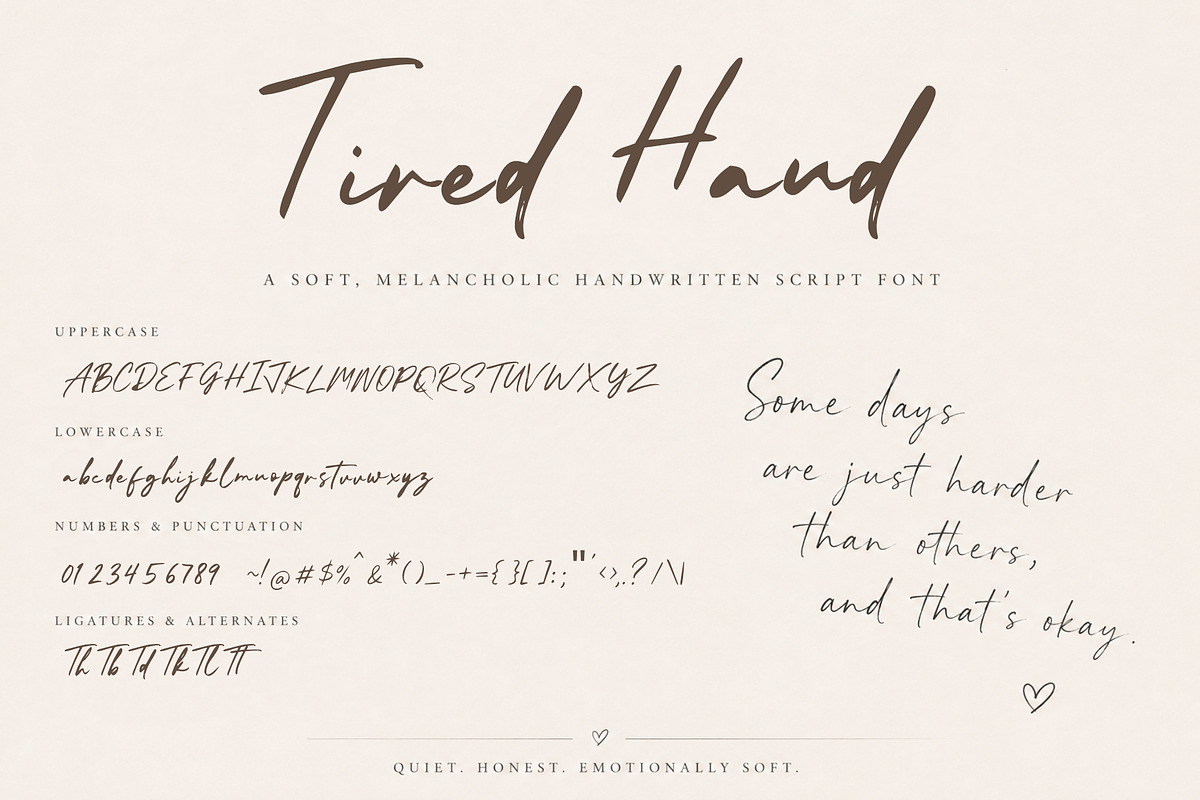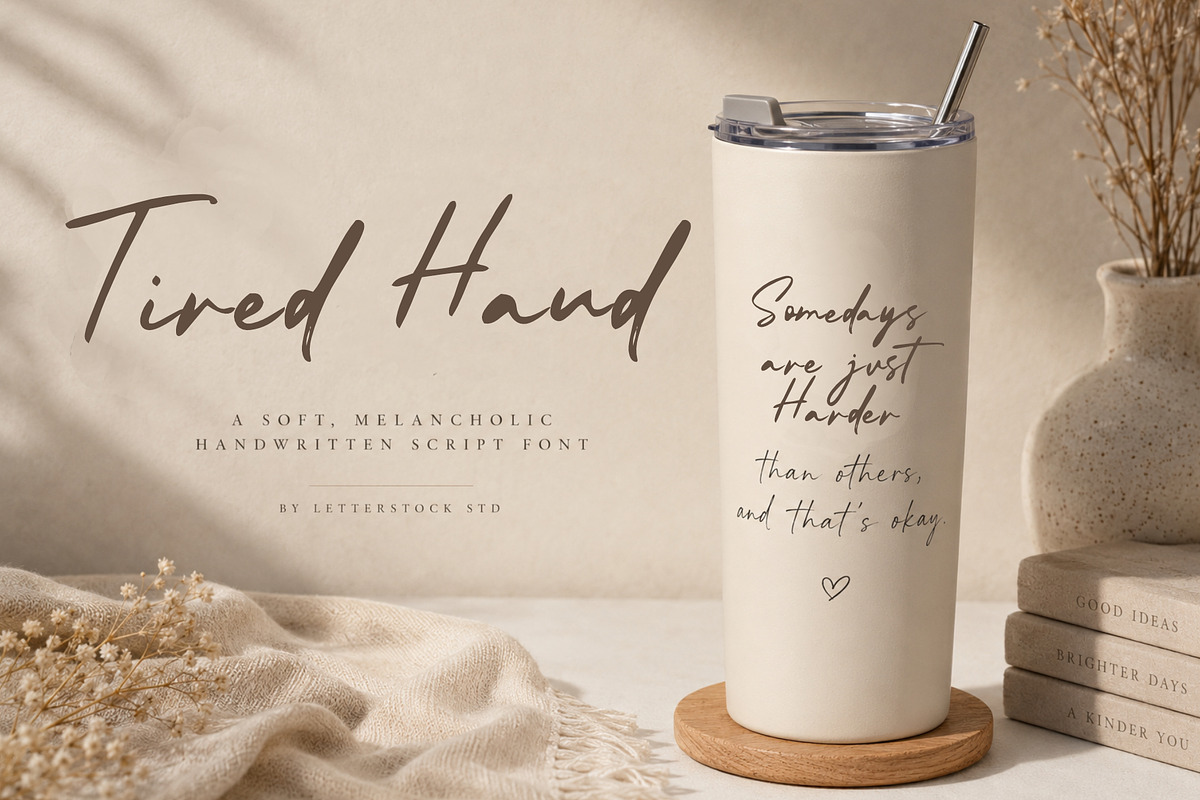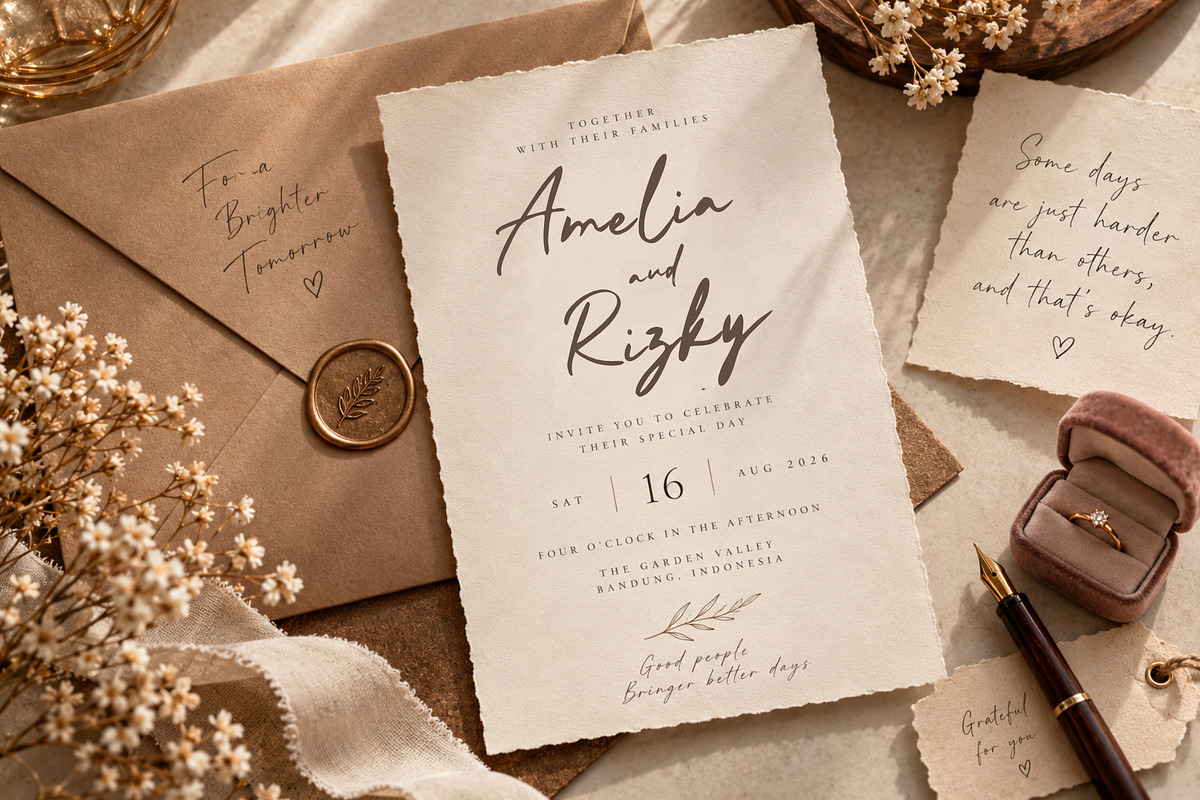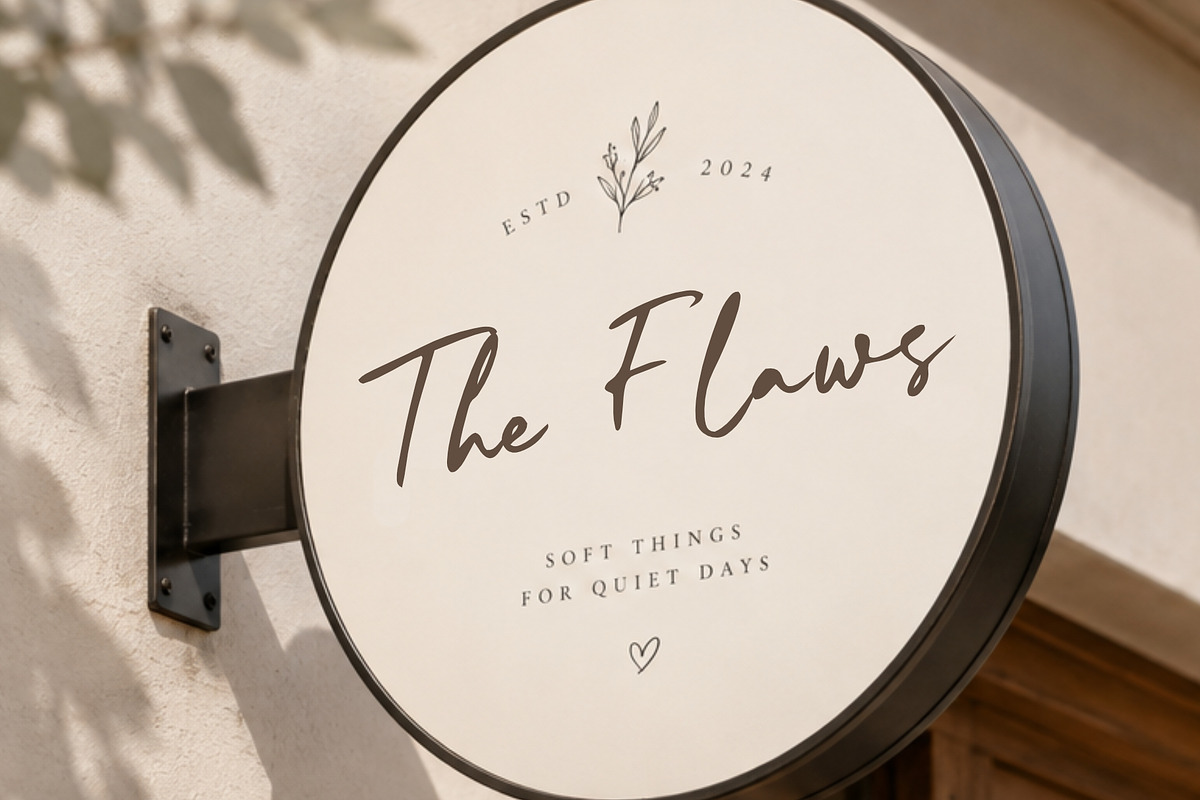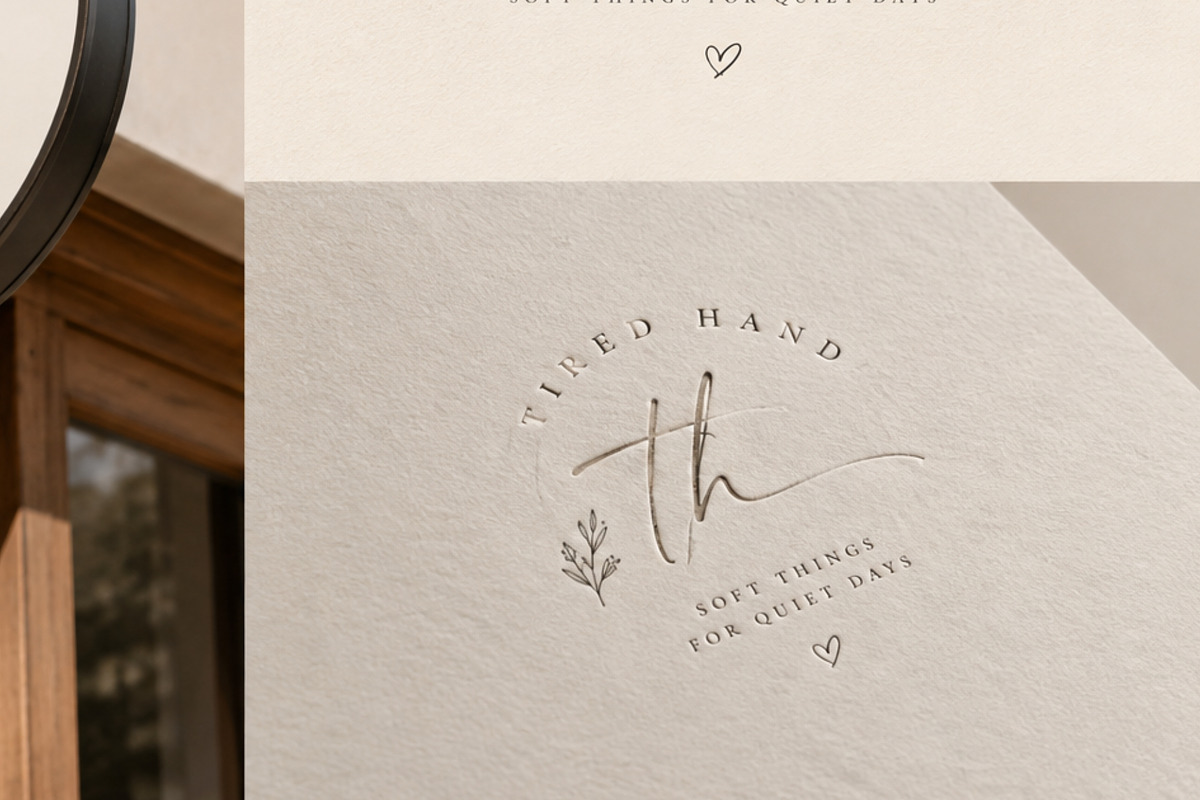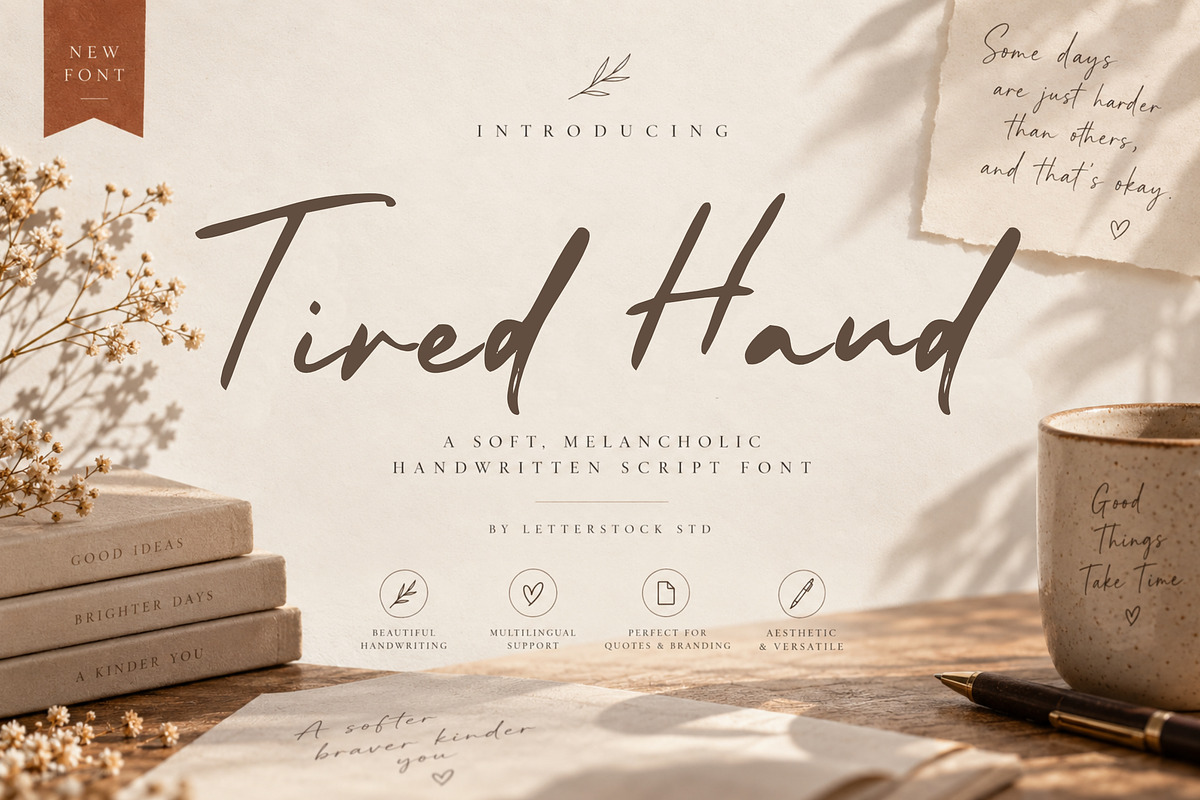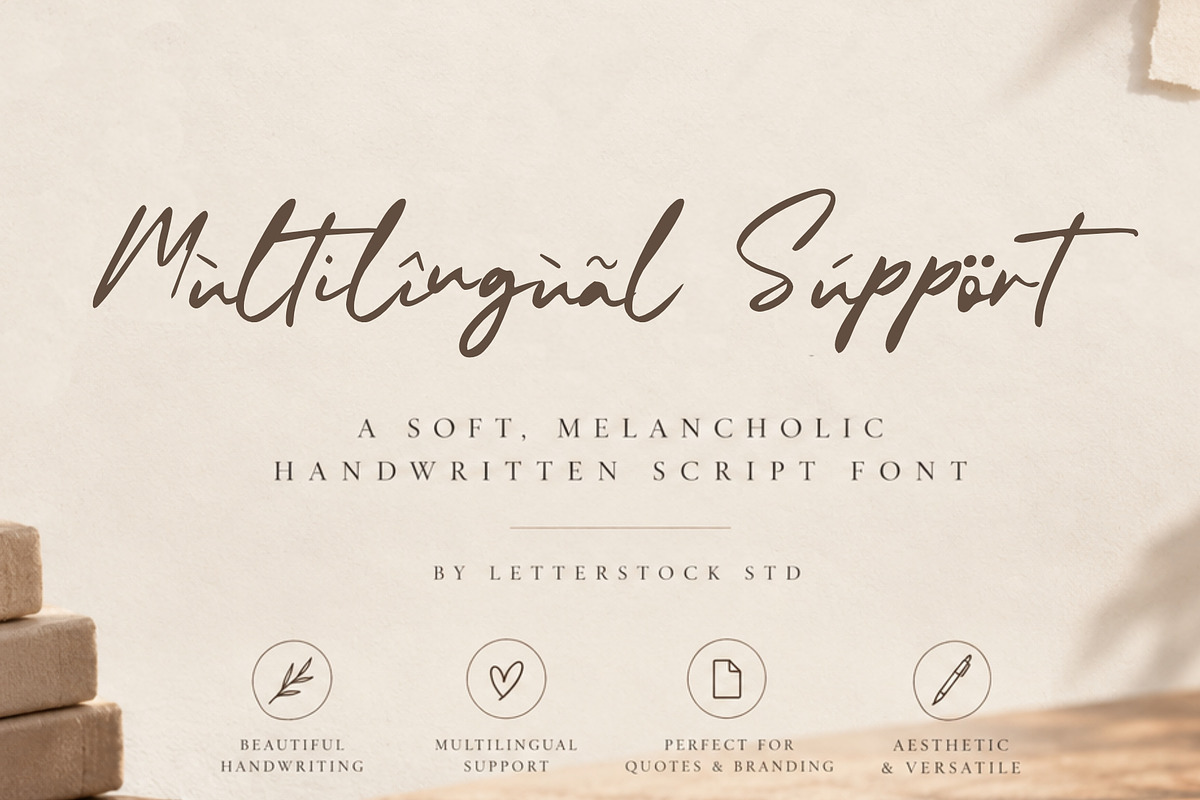
Tired Hand
Meet Tired Hand, a soft and melancholic handwritten script font that feels like a quiet page from someone's personal journal. With its gentle, slightly imperfect strokes and natural handwriting flow, Tired Hand captures raw, honest emotion — perfect for designers who want their work to feel personal, tender, and real.
This font was crafted for quotes about healing, quiet strength, and everyday feelings — the kind of words people write to themselves on hard days. Whether you're designing a greeting card, a journal cover, an Instagram quote post, or a branding project that needs a soft emotional touch, Tired Hand brings warmth and authenticity to every line.
Tired Hand includes:
Full uppercase & lowercase letters
Elegant ligatures & stylistic alternates (Th, Tb, Td, Tk, Tl, ff)
Multilingual support for international use
Clean, print-ready outlines — perfect for both digital and physical products
Quote designs & wall art
Journals, planners & notebook covers
Greeting cards & stationery
Social media graphics & Instagram quotes
Branding & packaging with an emotional, handmade feel
Wedding invitations with a soft, personal tone
Mental health / self-help content and merchandise
Tired Hand isn't just a font — it's a feeling. Soft. Honest. Emotionally real.